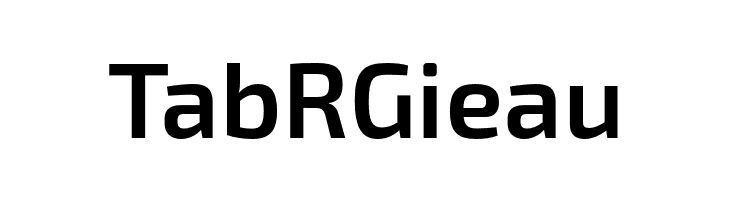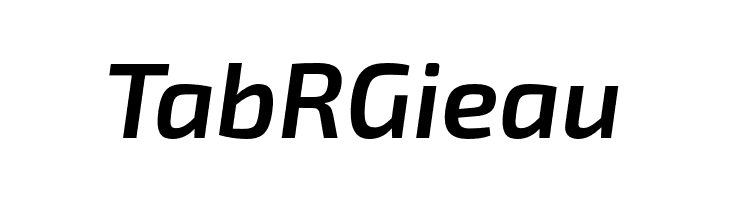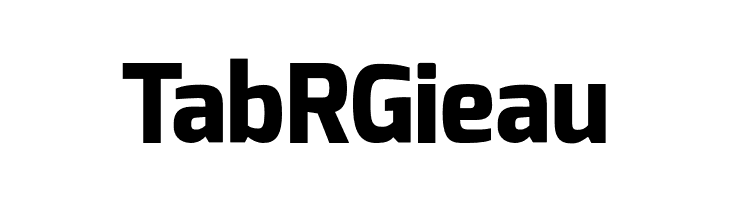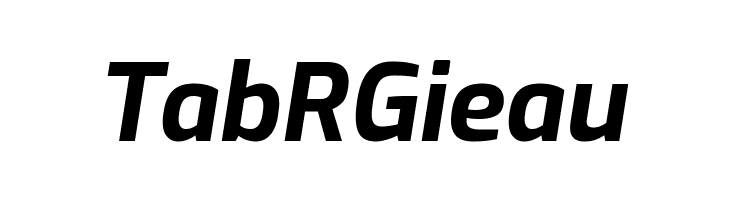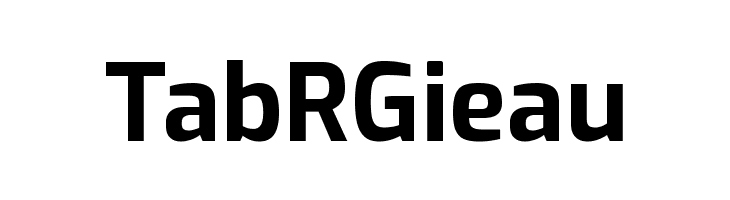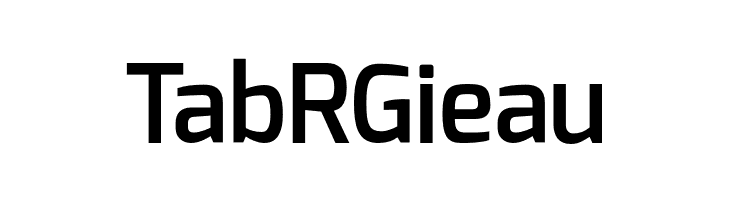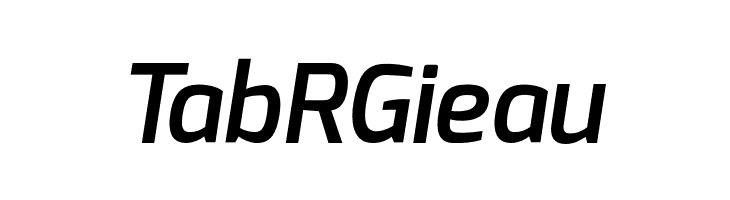
A modern, semi-bold font with a clean, geometric design.
A modern, semi-bold italic font with medium contrast and a sleek, dynamic style.
A bold, modern geometric font with strong clarity and readability.
A bold, modern font with a strong geometric structure and uniform stroke width.
A modern, extra-bold italic font with geometric precision and dynamic style.
A bold, angular font with a futuristic, geometric design.
A bold, italicized font with sharp, angular lines and a futuristic look.